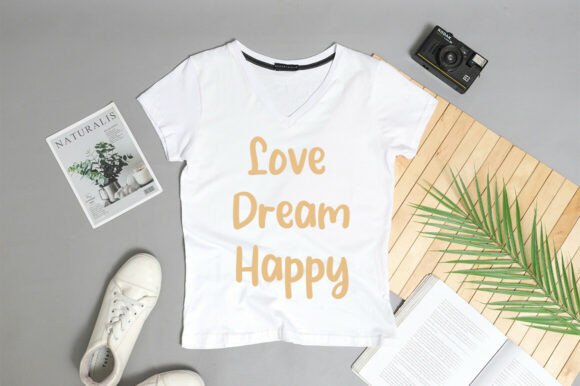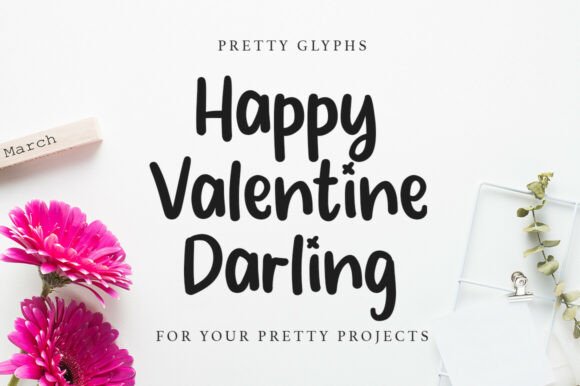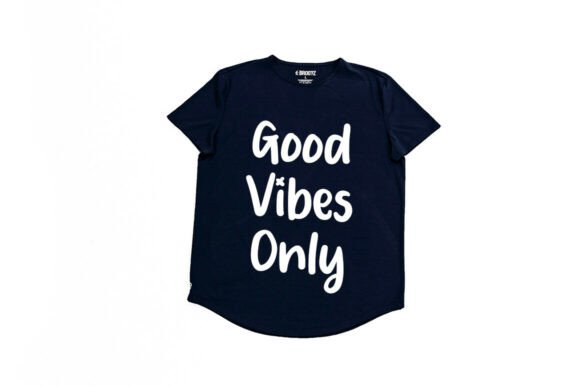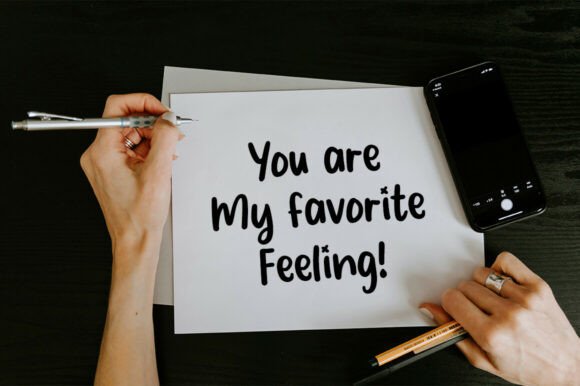
Introduction to Blush Journal Font
Blush Journal font is a clean, friendly, and exceptionally legible handwritten typeface designed for the modern record-keeper.
This versatile Blush Journal typeface mimics the neat, rhythmic handwriting of a favorite pen, making it perfect for long-form text in digital planners or physical diaries Use the Blush Journal font for recipe cards, educational materials, or lifestyle blog posts where clarity and personality are equally important.
Key Features of Blush Journal Font
Why Choose Blush Journal Font?